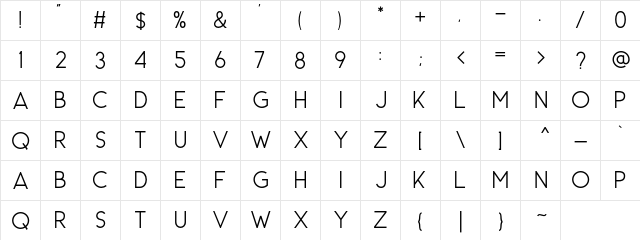
Carrol DEMO Regular
| Foundry | Sarid Ezra |
| Designer | Sarid Ezra |
Design Context for Carrol DEMO Typeface
Carrol DEMO offers clean, dependable letterforms without strong stylistic allegiance, making it a practical choice for designers who need flexibility.
Pro Tip: Pair Carrol DEMO with a font of contrasting weight or personality to build a more expressive typographic hierarchy.